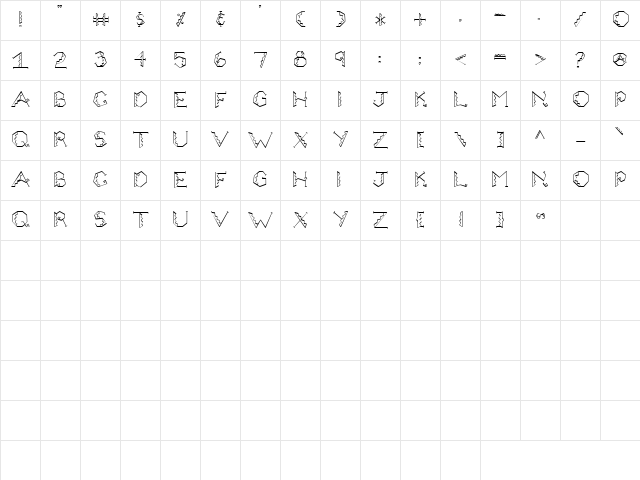
CK Zig Zag Regular Free Font
CK Zig Zag Regular
Design Context for CK Zig Zag
CK Zig Zag is a composed and adaptable typeface that performs quietly and consistently across a wide range of design contexts.